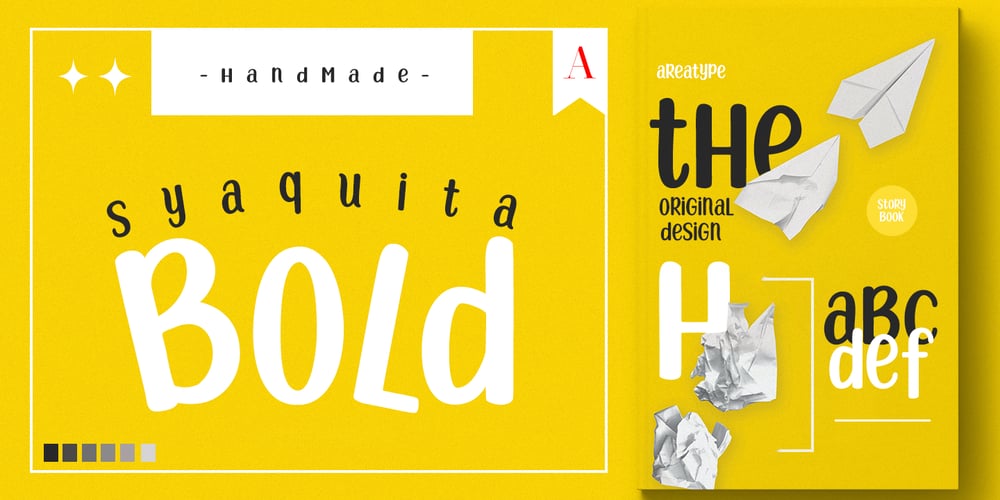
Syaquita Font Family was designed by Ambia and published by Areatype. Syaquita contains 1 styles and family package options. Syaquita Bold Display is a very versatile font.perfect for magazine images, to branding, poster design, and more.Thanks so much for looking, I really hope you enjoy it and please don’t hesitate to drop me a message if you have any issues or queries 🙂